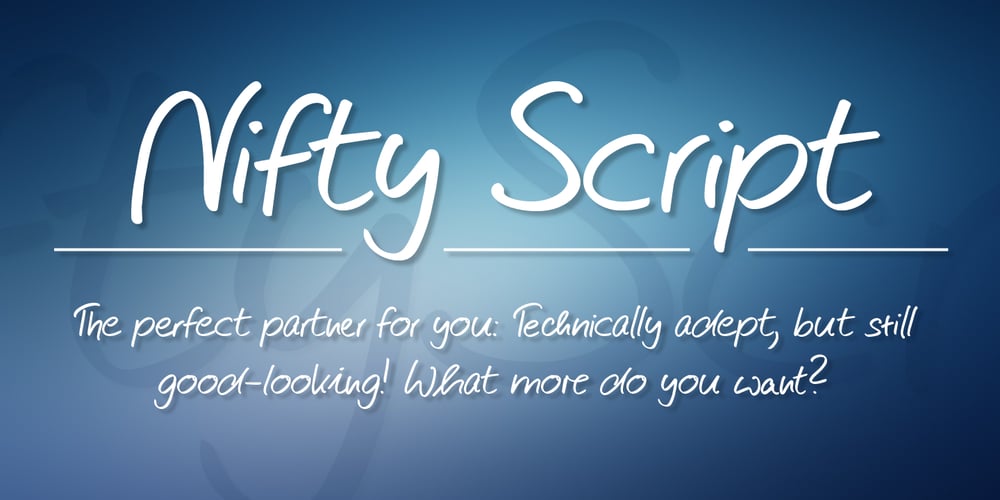
Nifty Script
Nifty Script font
Nifty Script Font Family was designed by URW++, Thieme Verlag and published by URW Type Foundry. Nifty Script contains 1 styles and family package options. The “Ultimate Script”? Not yet, but we’re working on it! Just think: Loads of ligatures, contextual variations and stylistic alternates, coupled with easy use…Just what you’ve been looking for all this time? Well, here it is with all of its typographic power. The perfect partner for you: Technically adept, but still good-looking! What more do you want? Die „Ultimative Schreibschrift“? Noch nicht, aber wir arbeiten dran! Man denke nur an: Mengen an Ligaturen, kontextbezogenen Varianten und stilistischen Alternativen, gekoppelt mit leichter Handhabung…Genau das, was Sie die ganze Zeit gesucht haben? Na denn, hier ist es in all seiner typographischen Mächtigkeit. Die perfekte Partnerin für Sie: Technisch versiert, aber auch gut aussehend! Was wollen Sie mehr?